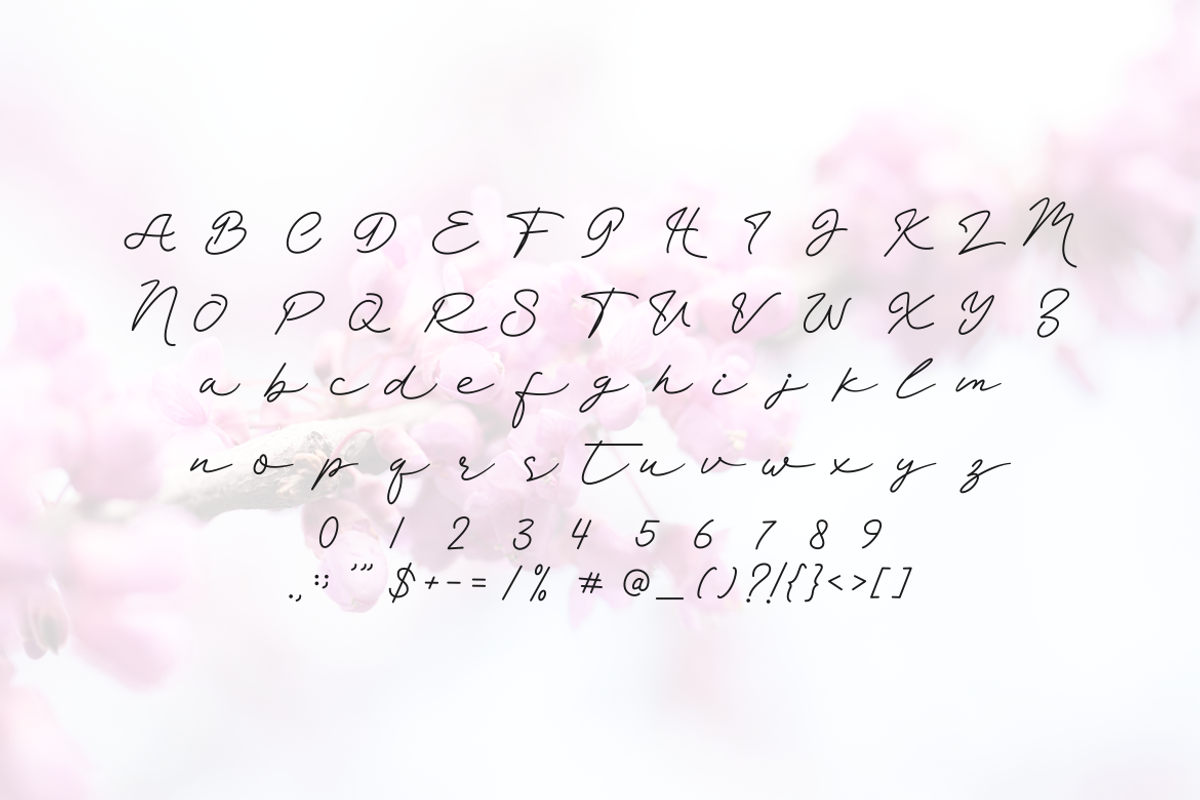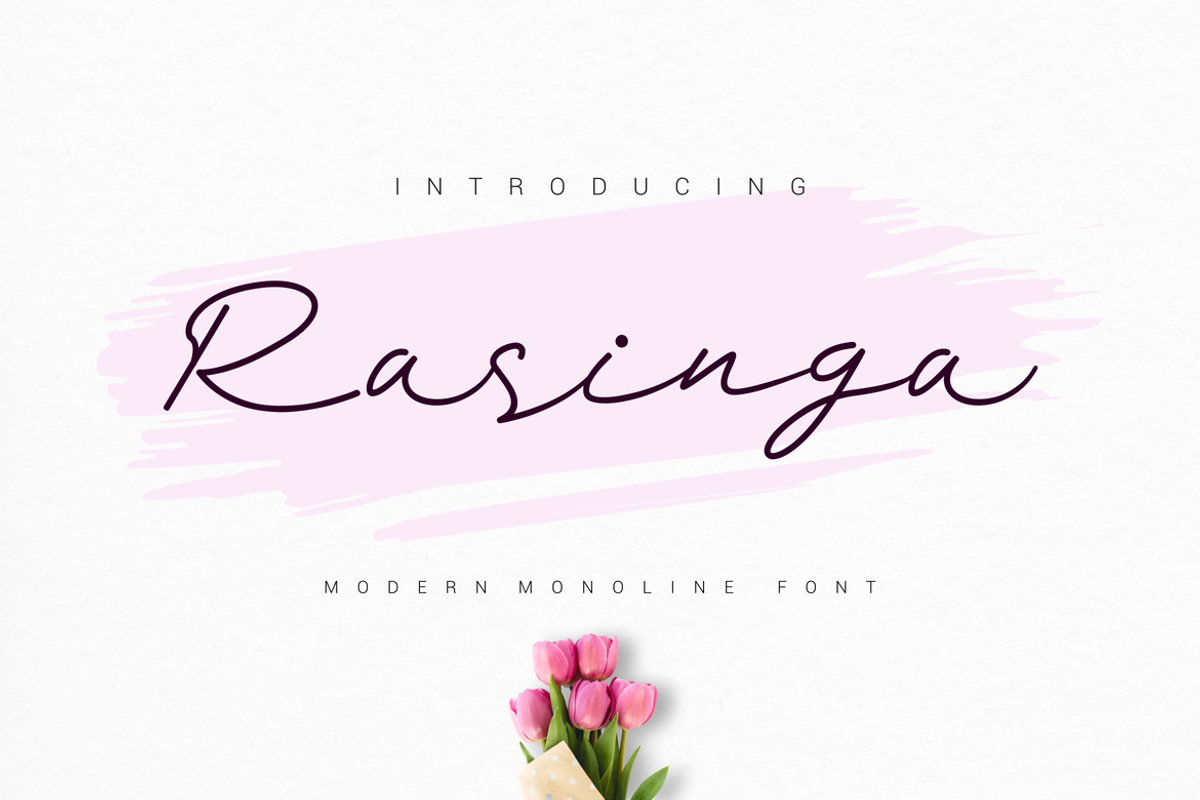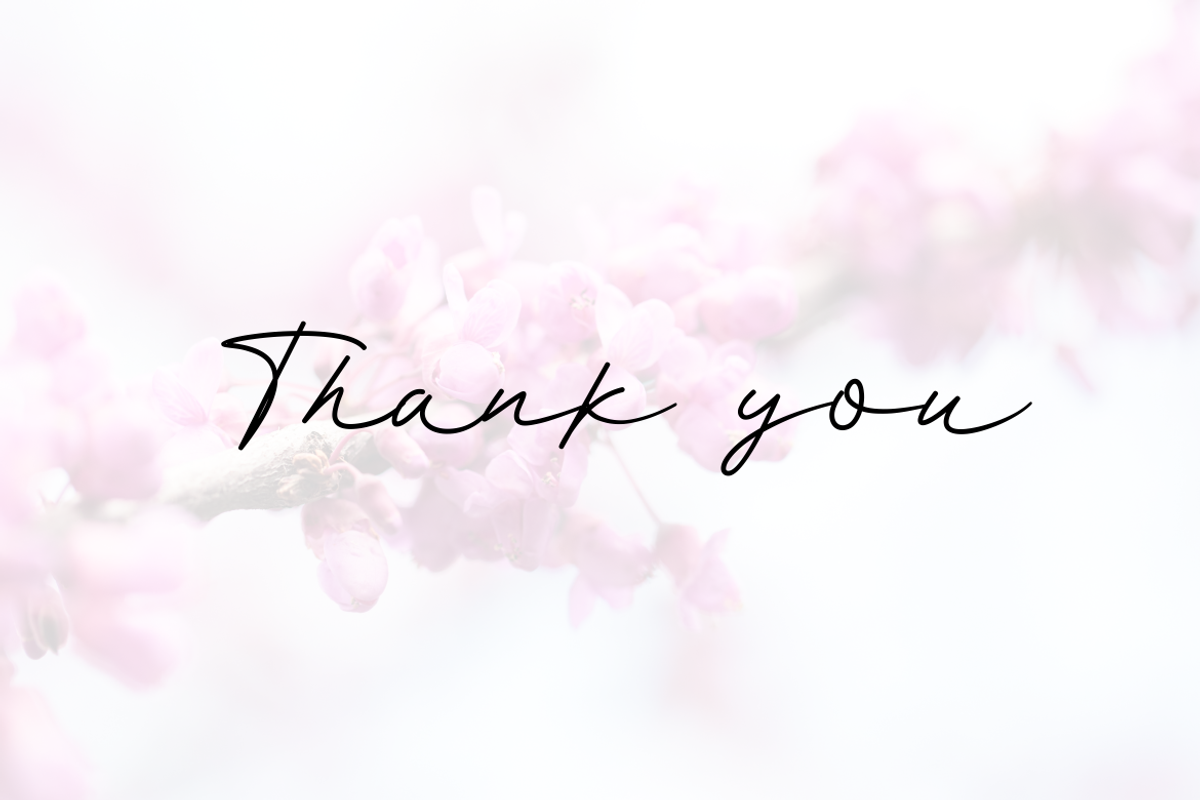
Rasinga
Introducing our new product Rasinga Font - Modern Font
Rasinga Font - Modern Font is a bold and authentic display font. The font is suitable for any branding project like logo, t-shirt printing, esport, and many more. outstanding in a wide range of contexts.